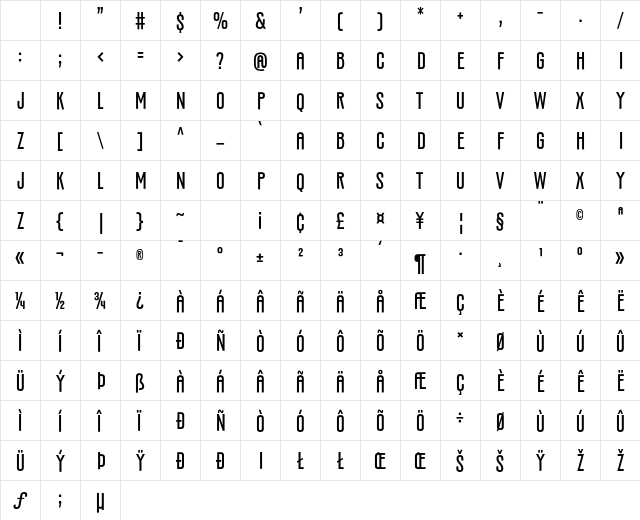
Complete Silverandes Trial Regular glyph index. Displaying only characters natively supported by Silverandes Trial Regular font.
Silverandes Trial is a composed and adaptable typeface that performs quietly and consistently across a wide range of design contexts.